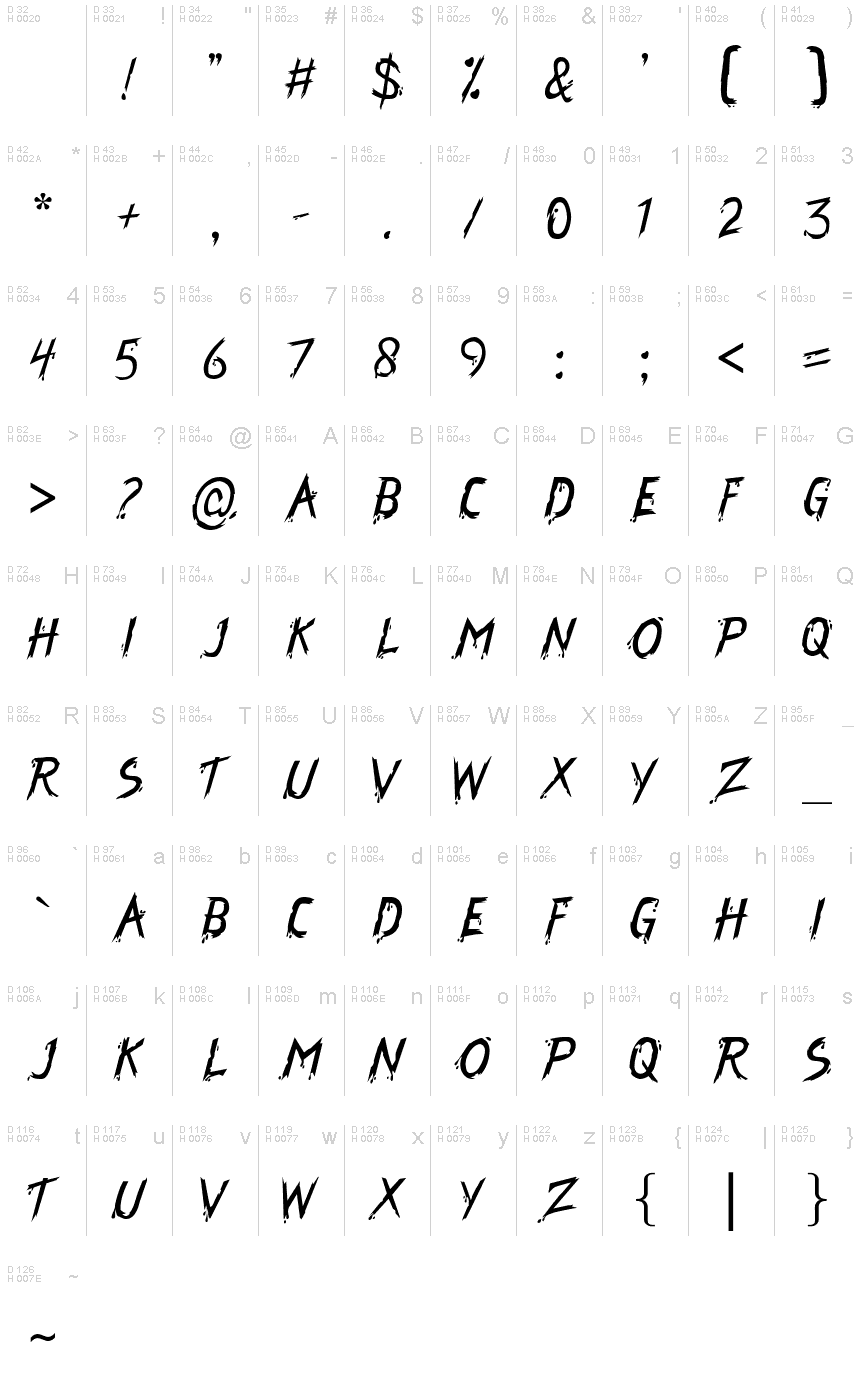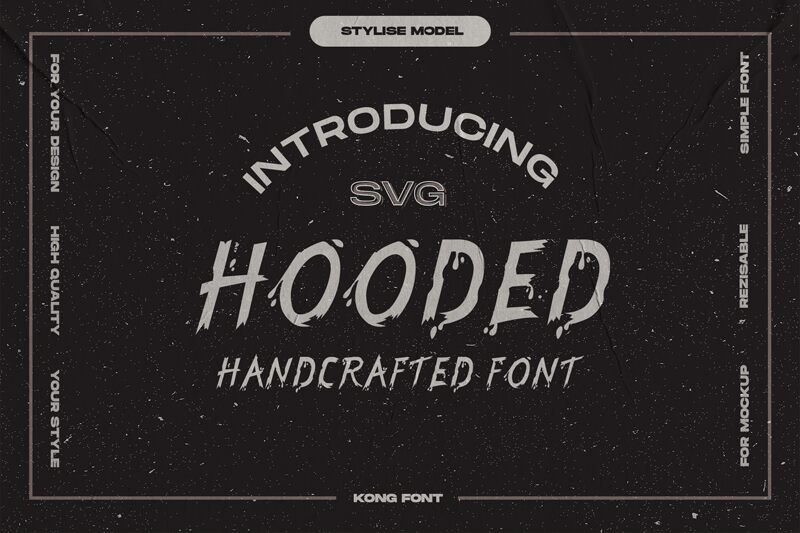
Hooded
Hooded, designed by Kong Font, is a captivating and spine-chilling display font. With its eerie and haunting style, this semi-light font exudes an air of mystery and darkness. Perfect for horror movie posters, Halloween-themed party invitations, or gothic book covers, Hooded will leave a lasting impression on your audience. Its unique characteristics make it suitable for creating spooky logos or adding a touch of darkness to any design project. Unleash the fear with Hooded and embrace the macabre in your next creative endeavor.